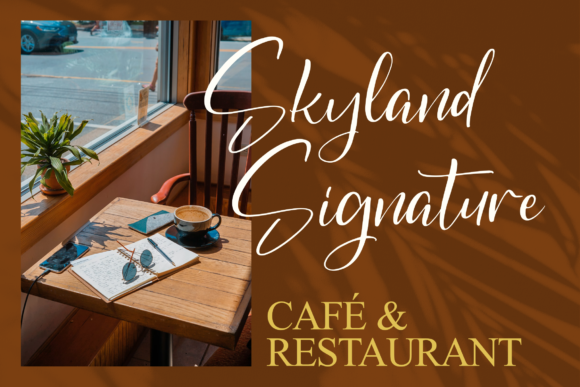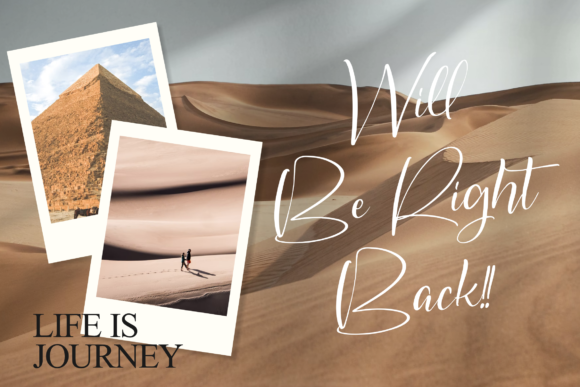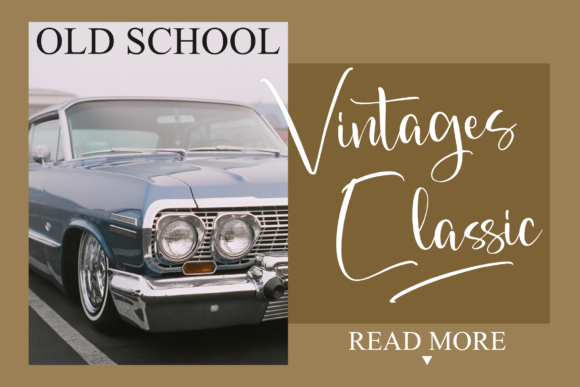
Introduction to Shenaritta Font
As designers, we’ve all been there – staring at a blank canvas, trying to bring a creative vision to life. The moment when a project’s concept starts to take shape is a thrilling one, and the right font can make all the difference. That’s where the beautiful Shenaritta Font comes in, a stunning script font designed to elevate any project.
Whether you’re working on a branding project, creating homeware designs, or developing product packaging, Shenaritta Font is the perfect design resource to add a touch of elegance and sophistication. With its high-quality design and transparent background, this font is versatile enough to be used in a wide range of creative projects. And the best part? It’s available for free download, making it an invaluable asset for designers looking to add some visual flair to their work.
Key Features of Shenaritta Font
- High-quality, unique font design ideal for creative projects
- Translucent background, allowing for seamless integration with any design
- Designed with a high-resolution output, suitable for print and digital use
- Includes a range of characters, including uppercase and lowercase letters, numbers, and punctuation
- Perfect for designers and artists looking for a distinctive, high-quality font for their creative project
Honest Review: Shenaritta Font
I recently had the chance to work with the Shenaritta Font, and I must say it’s been a game-changer for my creative project. The high quality of this font is truly impressive, and it’s a fantastic addition to any design resource.
Here are some of the things I love about the Shenaritta Font: ✨
- It has a beautiful, unique design that adds a touch of elegance to any text.
- It’s incredibly versatile and can be used for a wide range of creative projects.
However, there are a few limitations to keep in mind: ⚠️
- The font doesn’t support transparent backgrounds, which can be a problem for designers who need to create graphics with complex backgrounds.
Overall, I’m thoroughly impressed with the Shenaritta Font. While it’s not perfect, its high quality and unique design make it a valuable addition to any design resource. I highly recommend it to designers looking for a high-quality font for their creative projects.
The Shenaritta Font is suitable for various creative projects, including logos, branding, and marketing materials. Its transparent background makes it ideal for use on images and backgrounds.